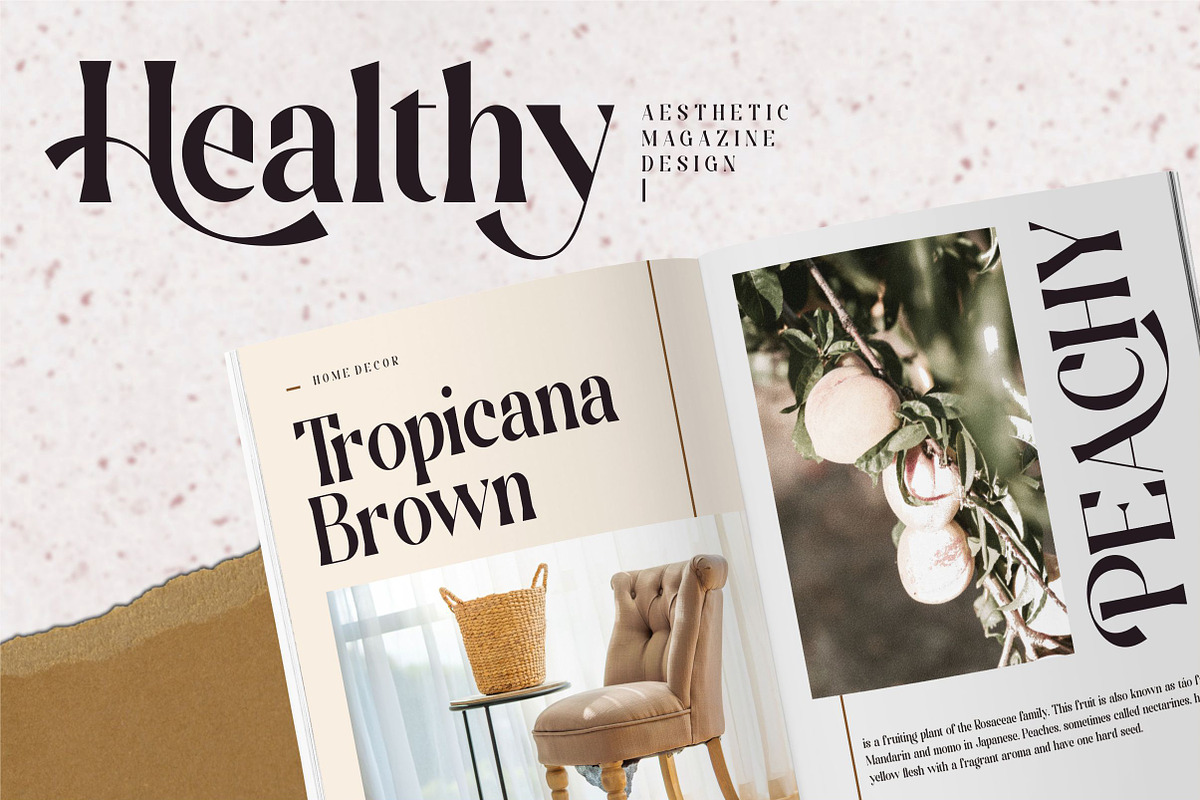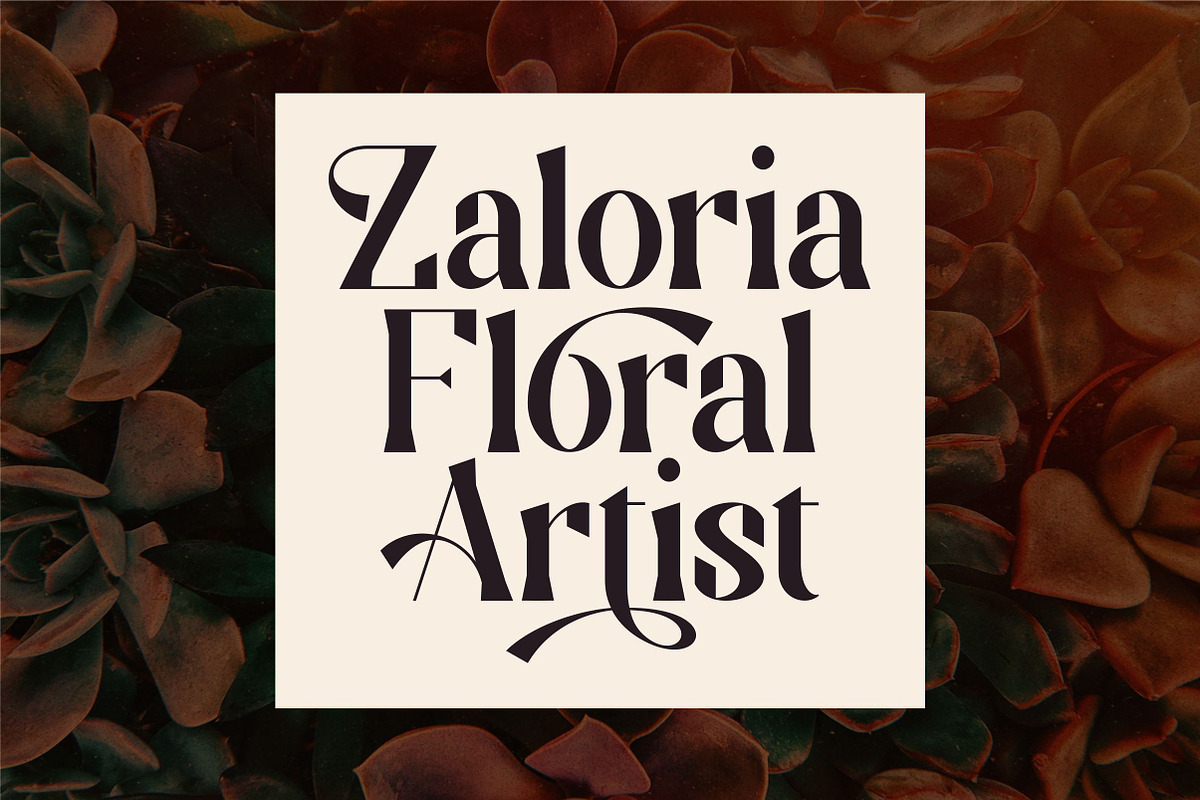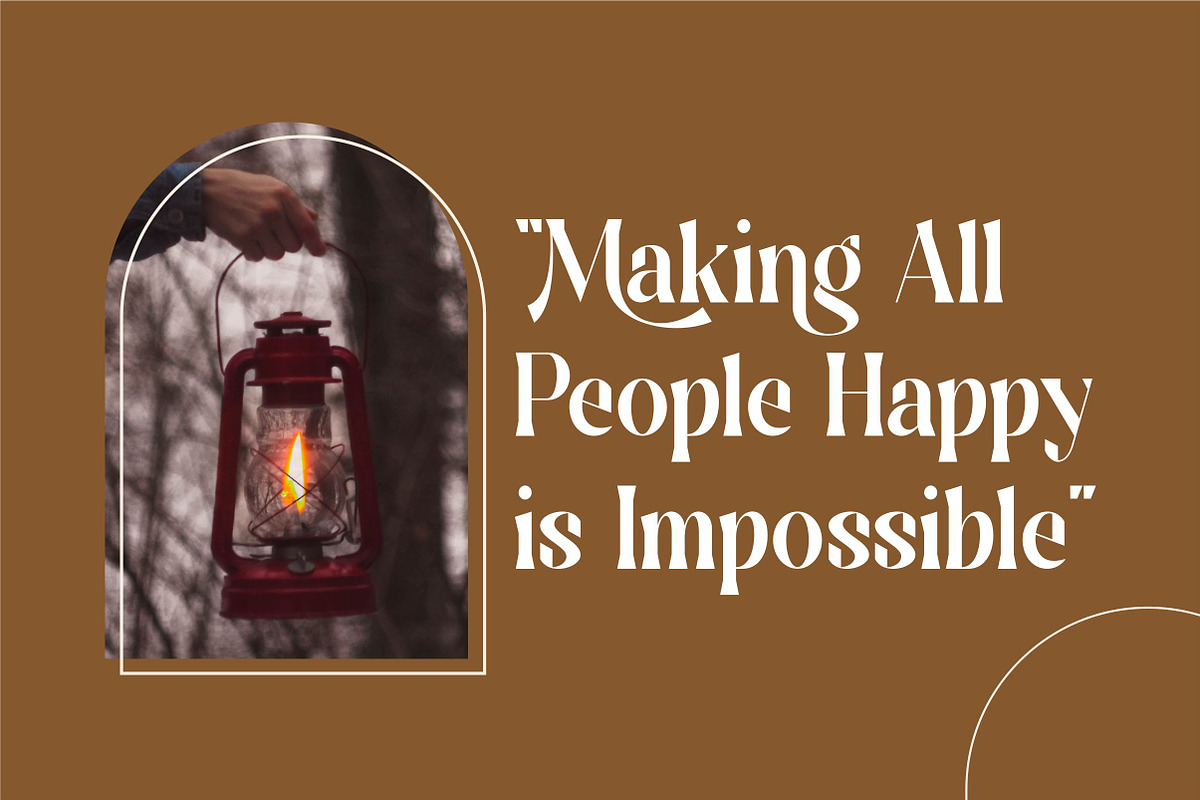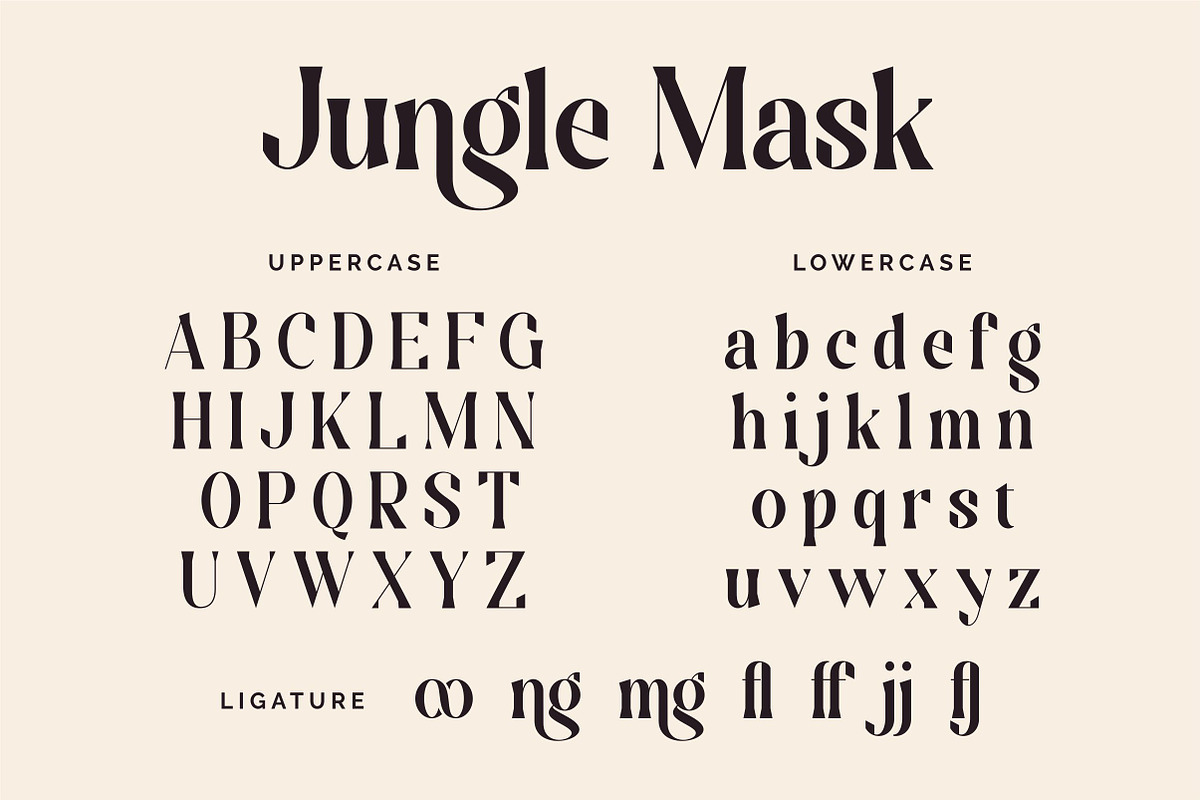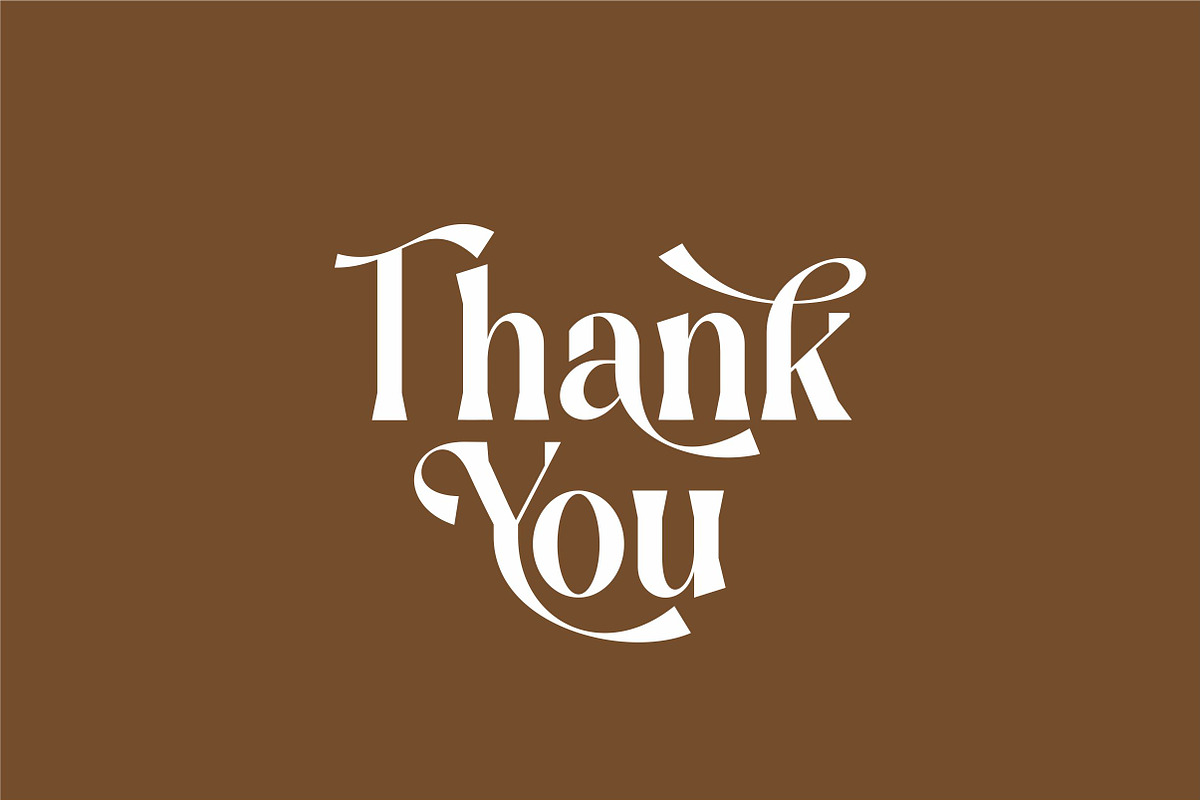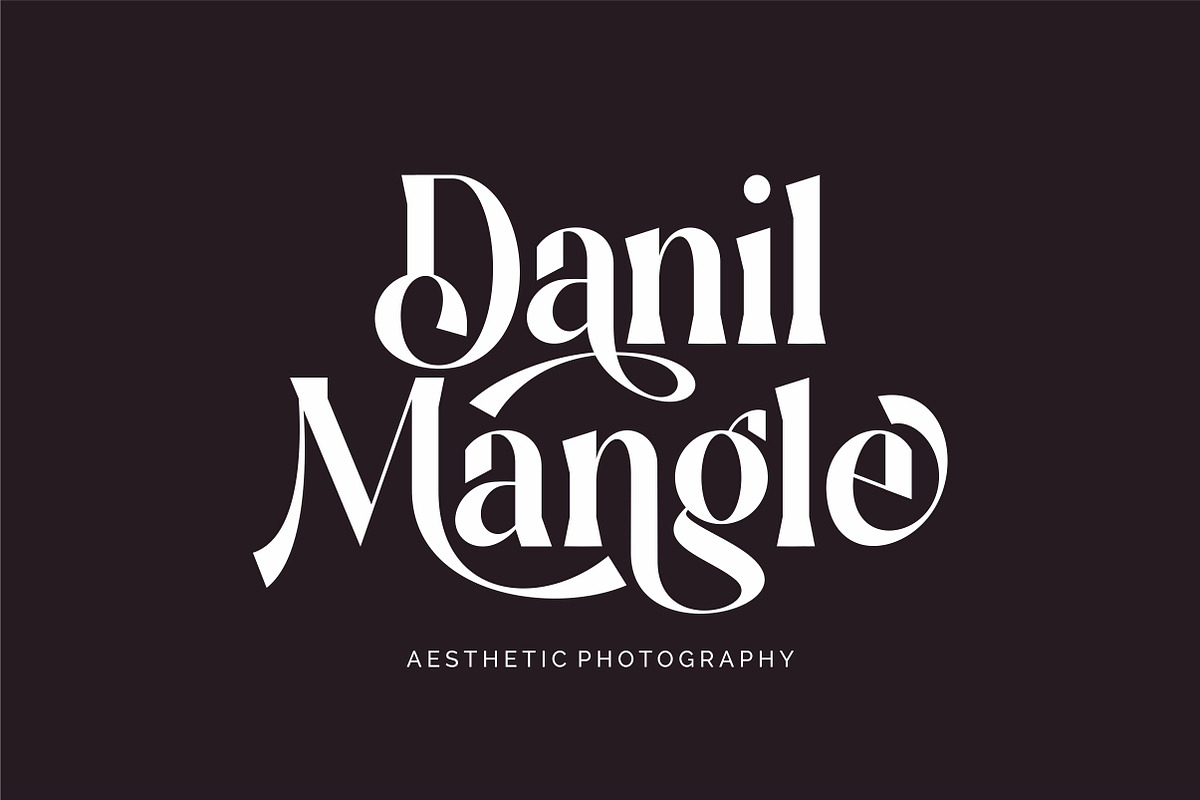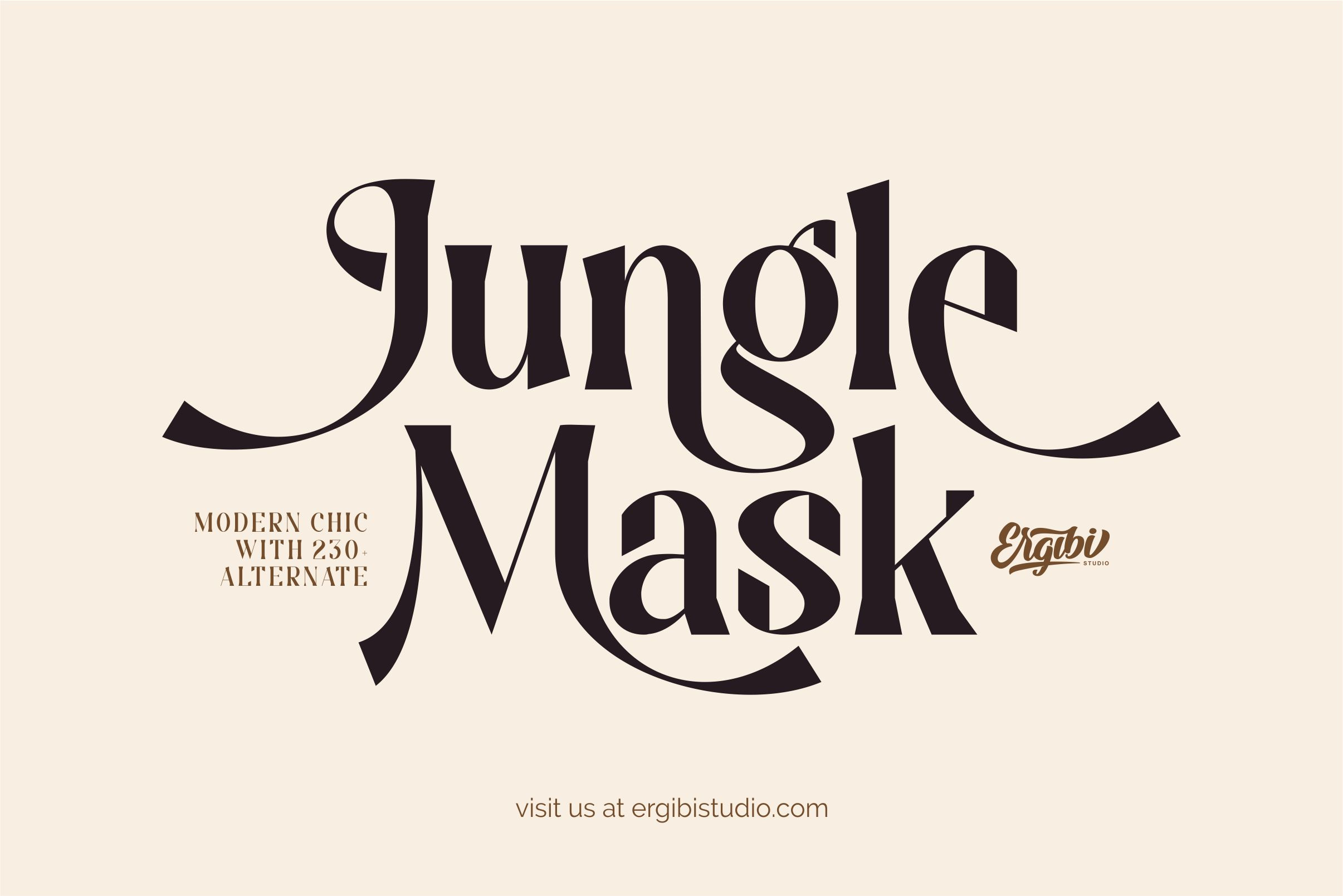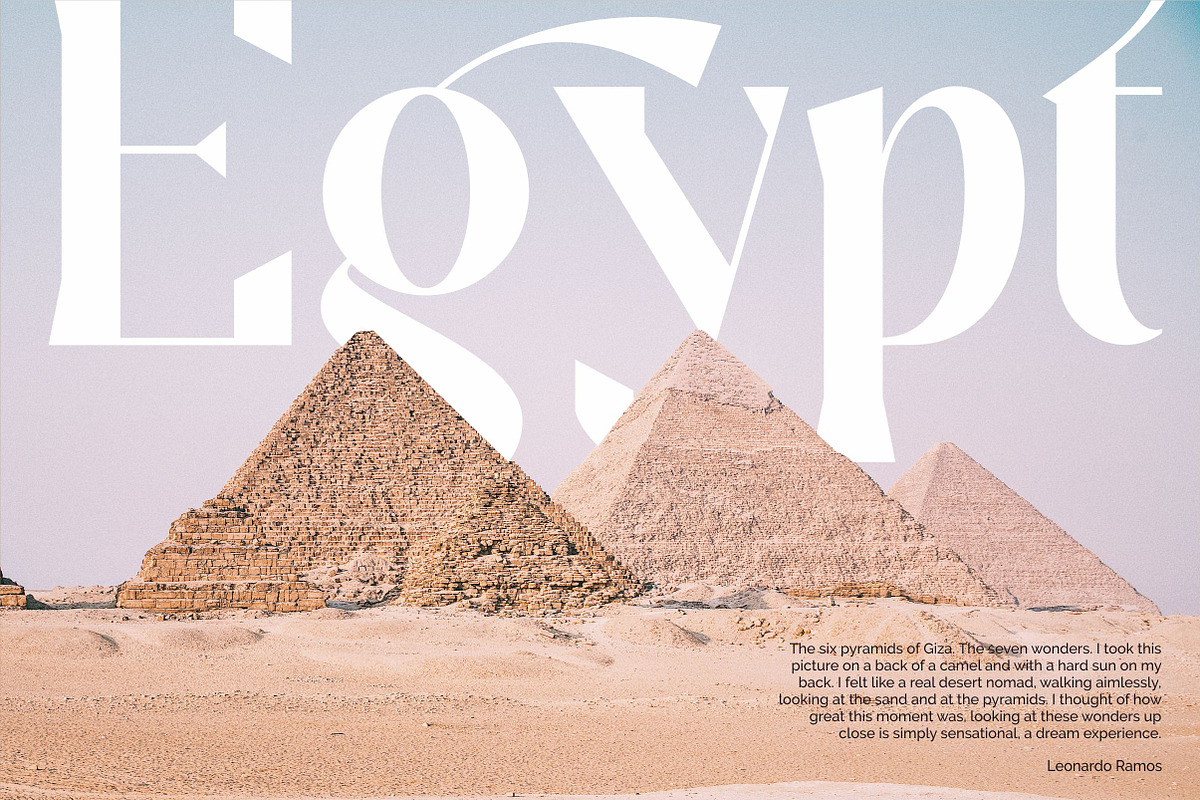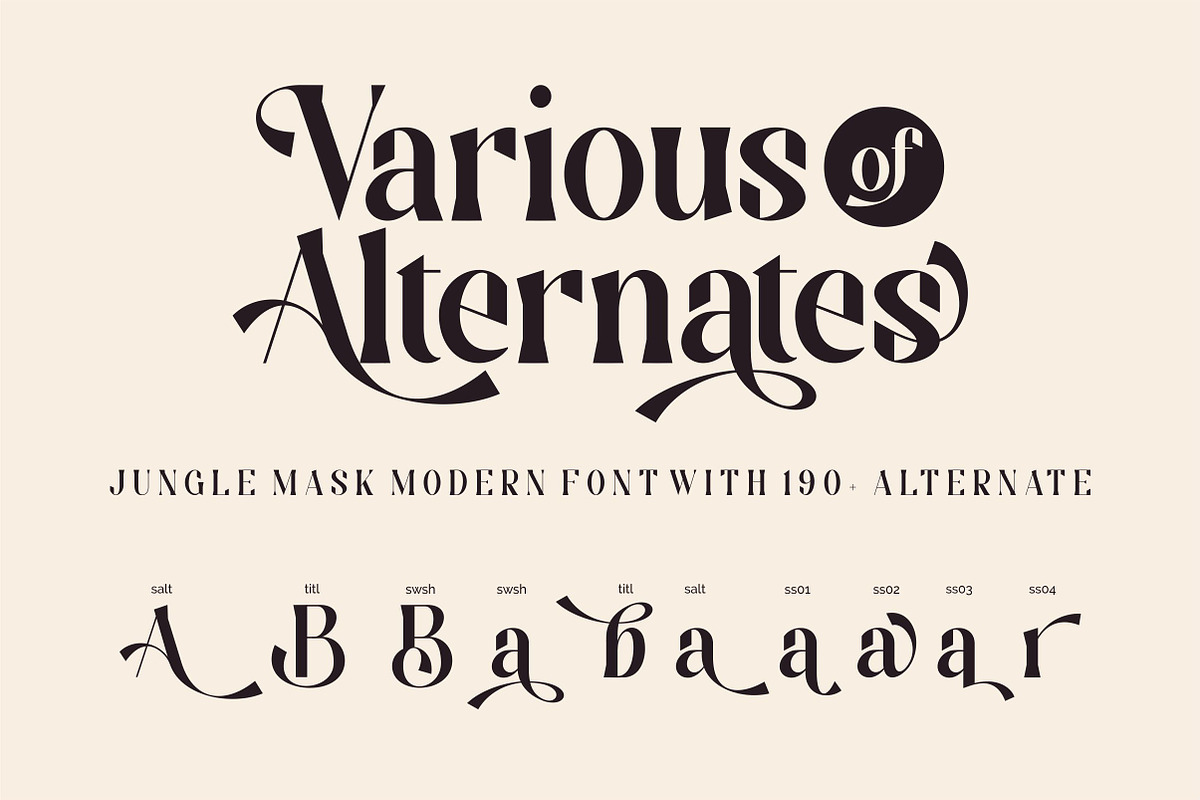
Jungle Mask - Modern Font
Jungle Mask This typeface has been made carefully to make sure its premium quality and luxury feel. The many alternate character on serif makes this typeface unique and stands out rather than the regular sans font, perfectly for headlines, logos, posters, packaging, T-shirts,coffee shops, restaurants, magazine's headers, signs or gift/post cards,cafe's and weddings or any type of advertising purpose.